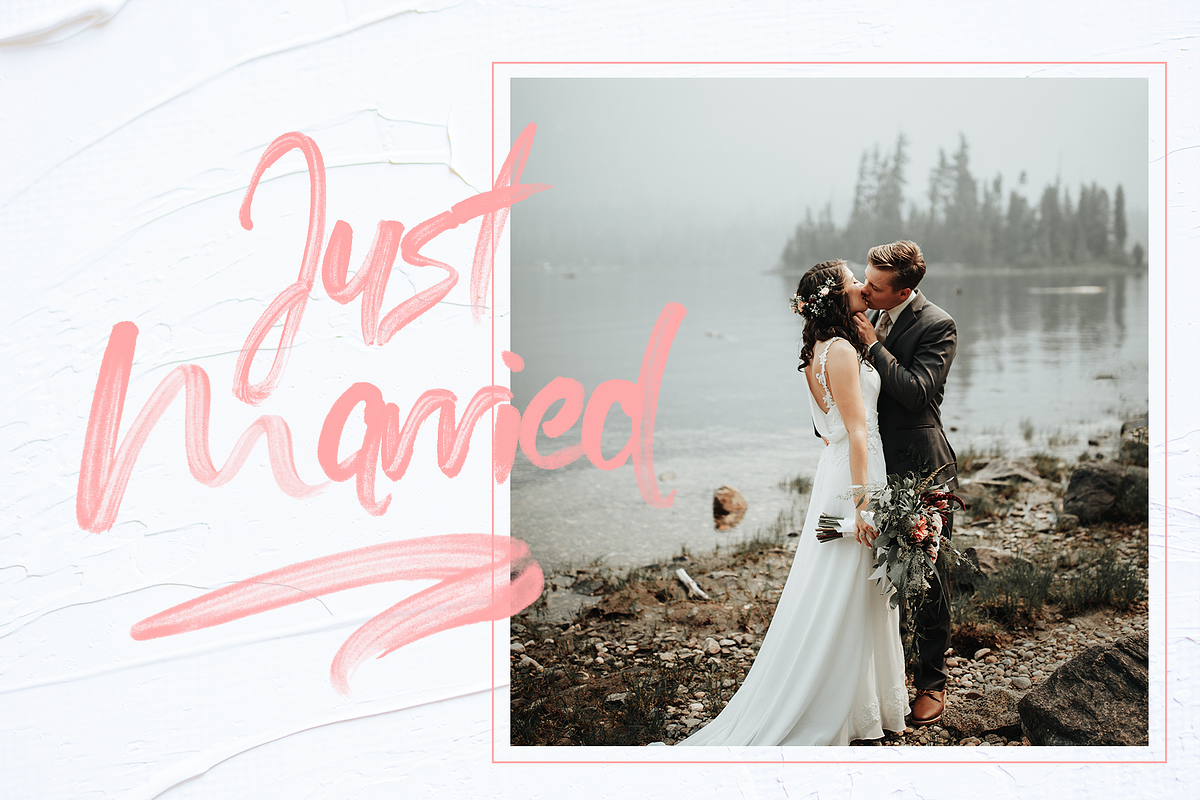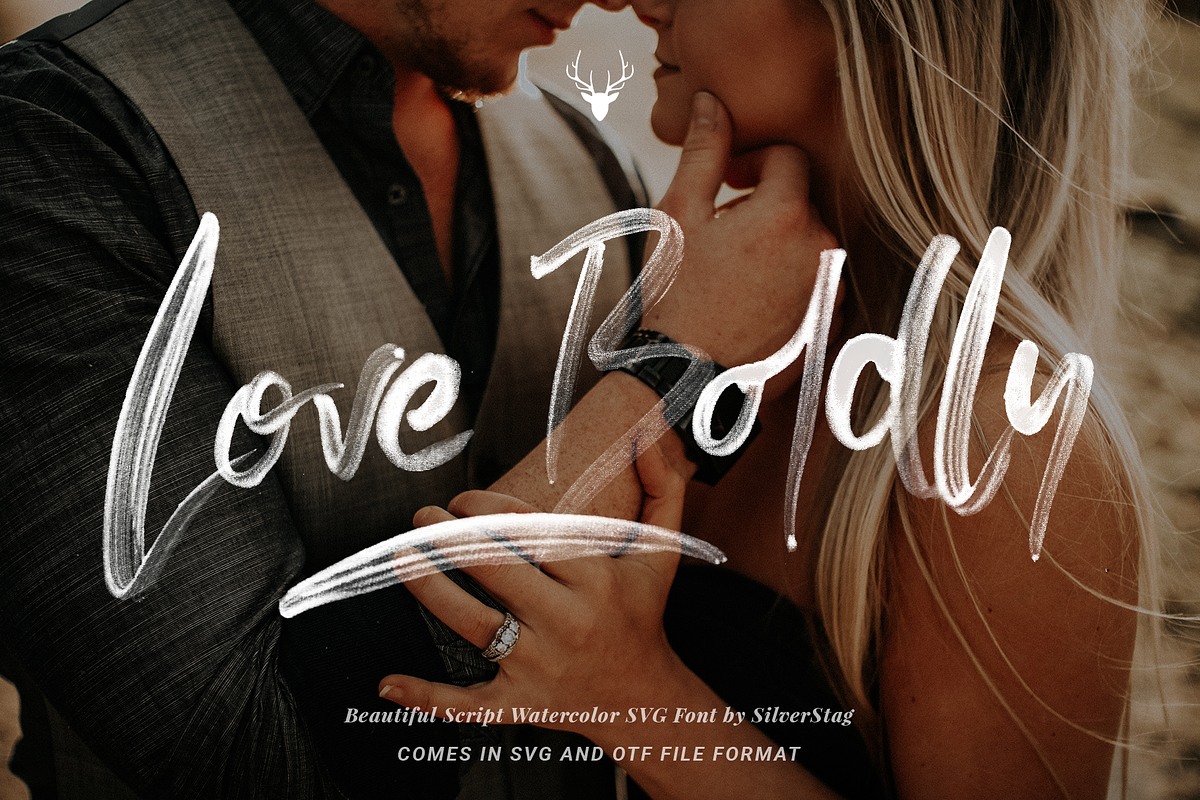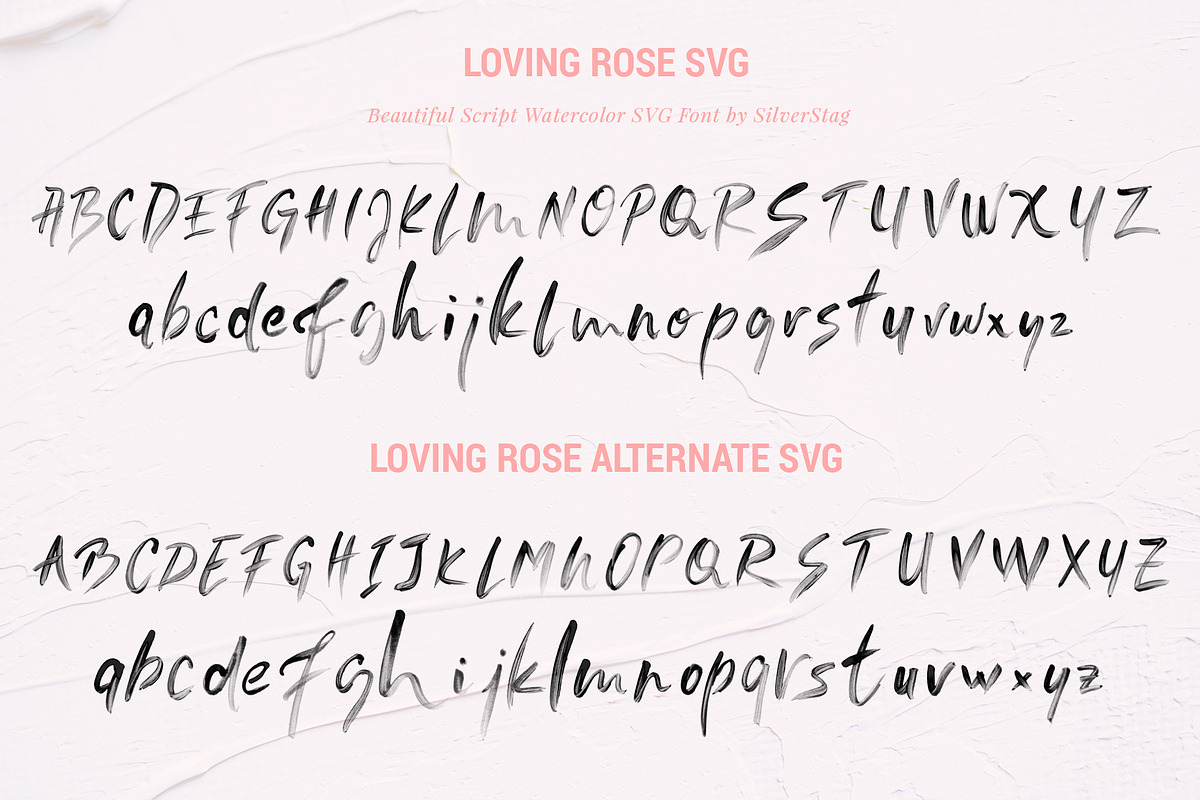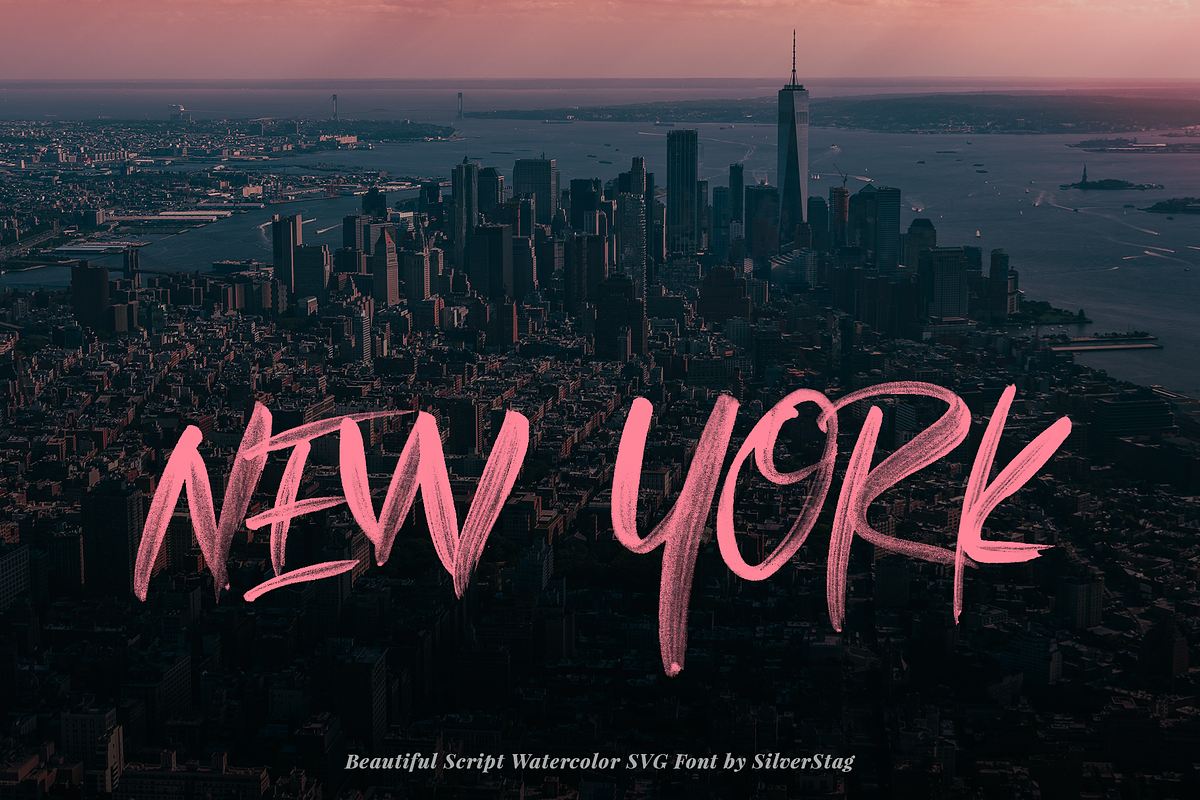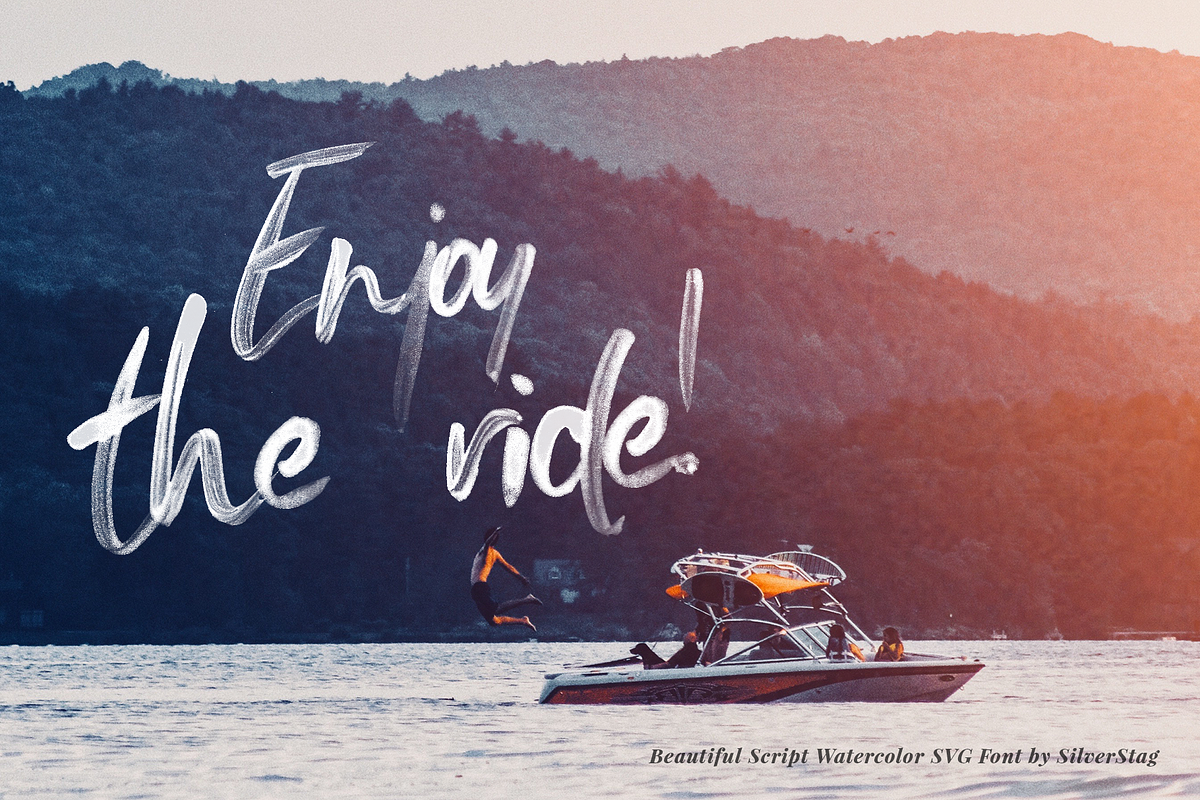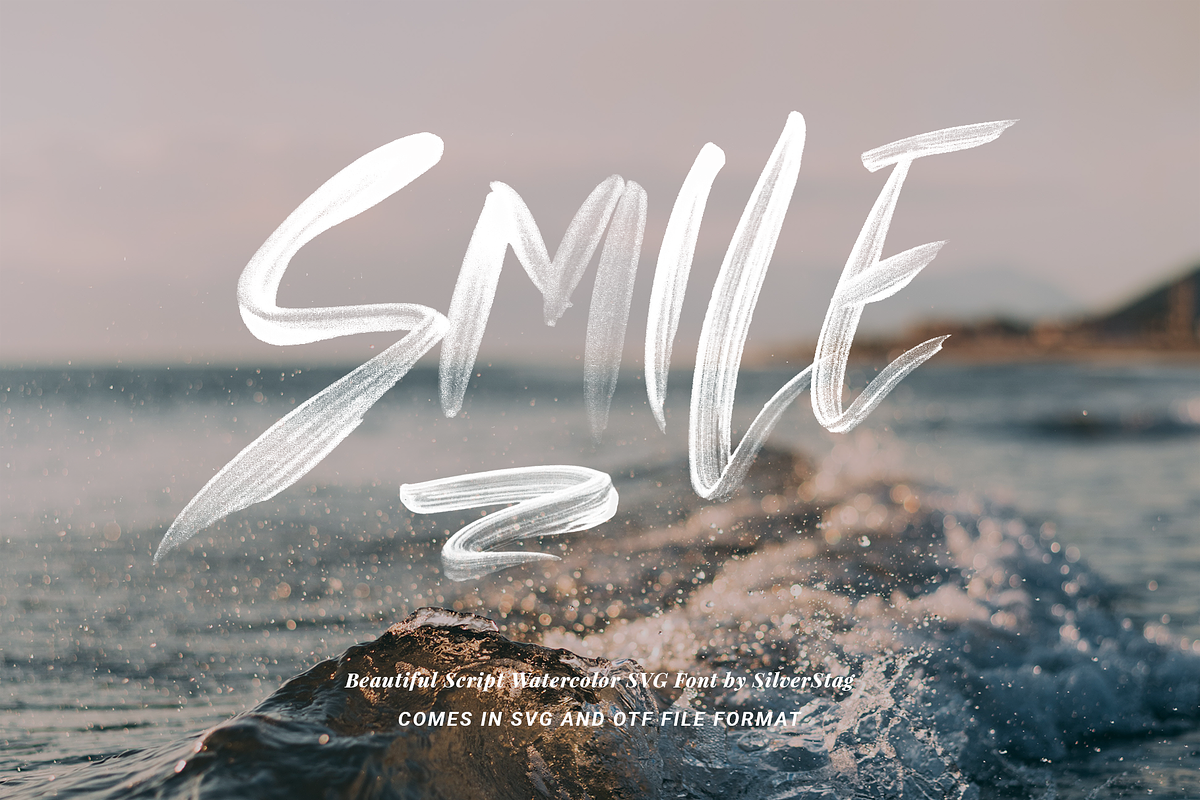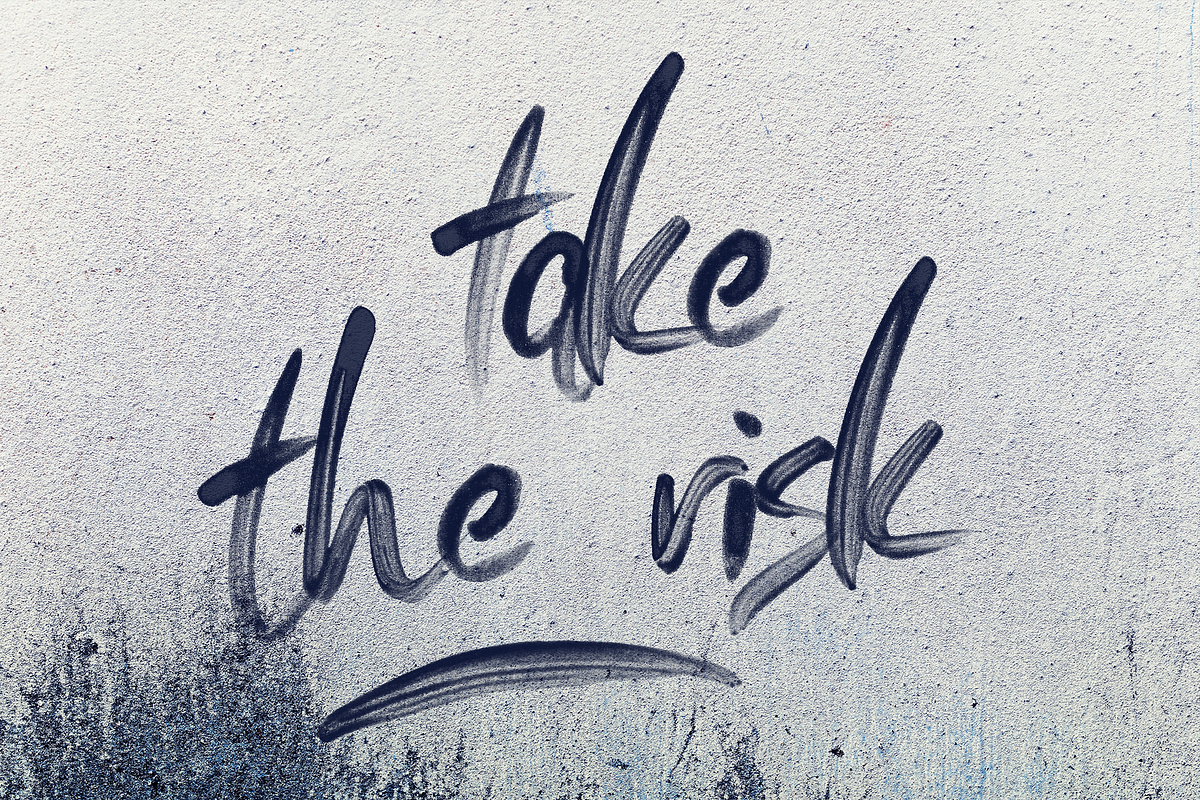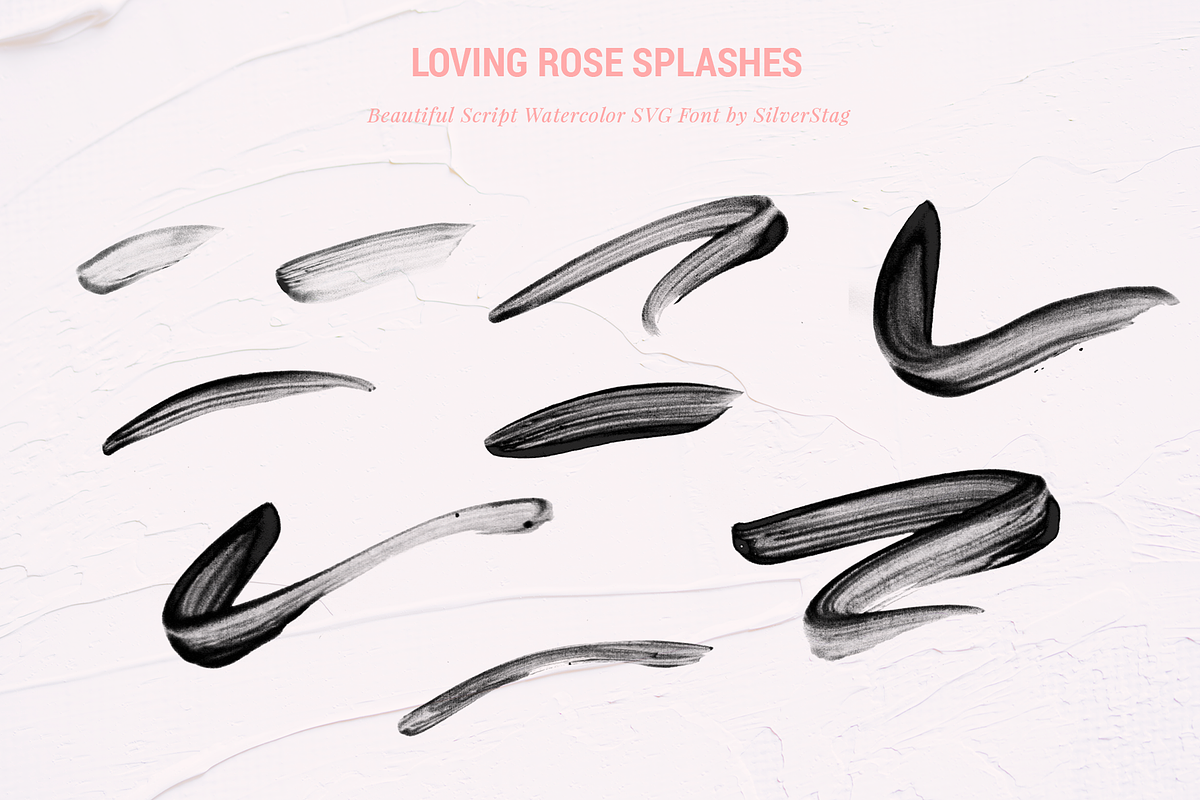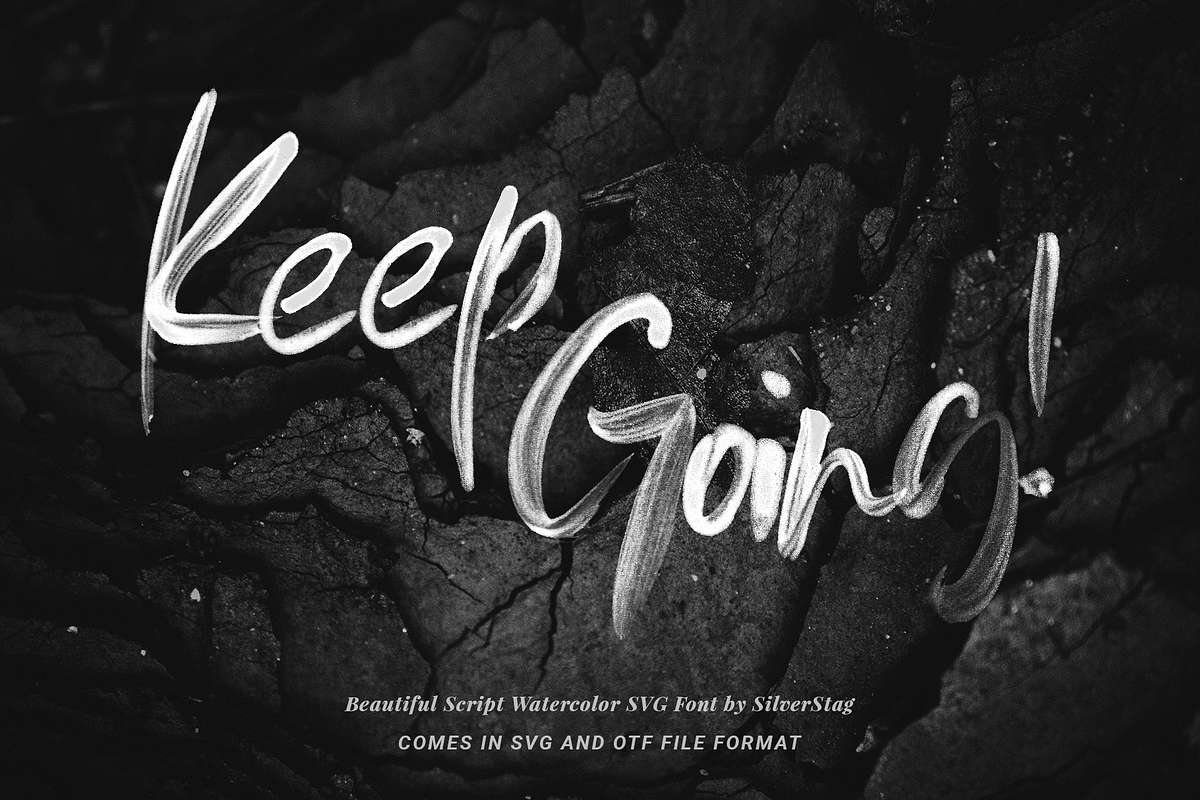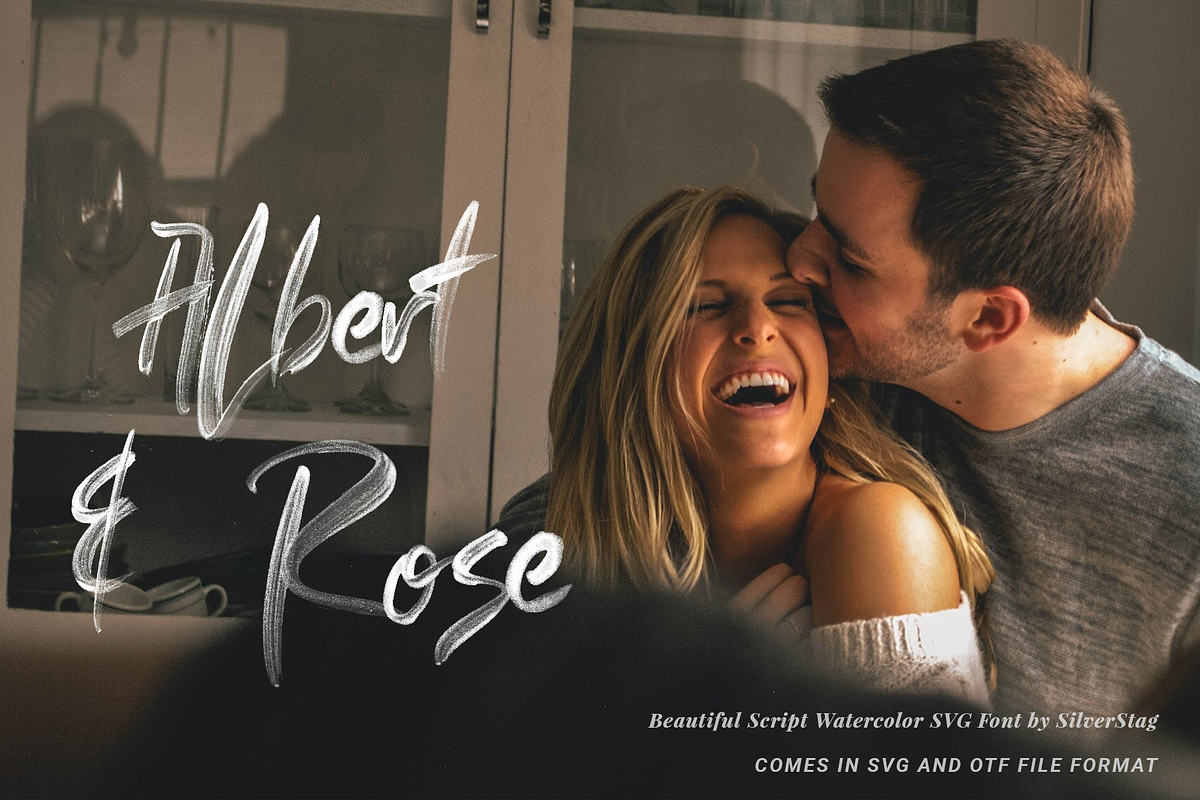
Loving Rose SVG Watercolor Font
Loving Rose is a SVG Watercolor Font that has a true hand drawn look and feel. To use Loving Rose font you will need Photoshop CC 2017 or Illustrator CC 2018 (or newer), however OTF Loving Rose doesn’t require any specific software and can be used on any computer and in any software.
Loving Rose includes three different SVG fonts that include Language support, Ligatures and Splashes.
1. Loving Rose SVG Watercolor Font with Ligatures and Splashes included
2. Loving Rose Alternate SVG Watercolor Font with original and alternate letters
Splash Ligatures are available simply by typing out bracket pairs with your ligatures setting active: (), ()(), [], [][], {}, {}{}, ()[], [](), (){}